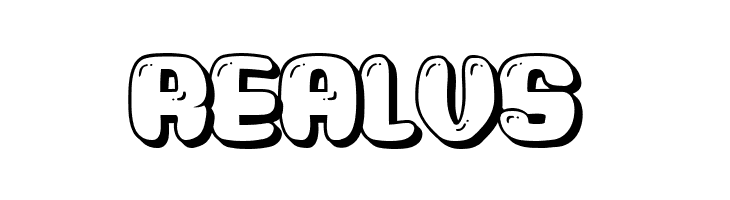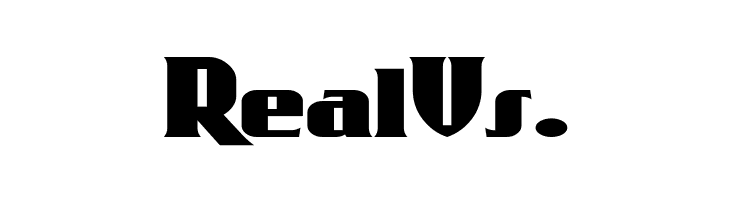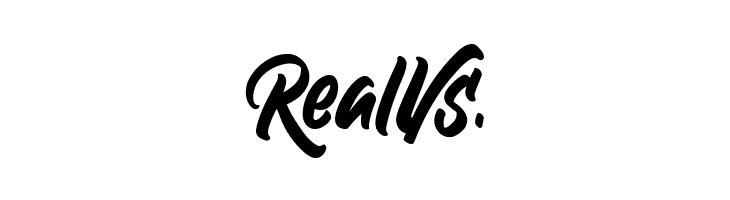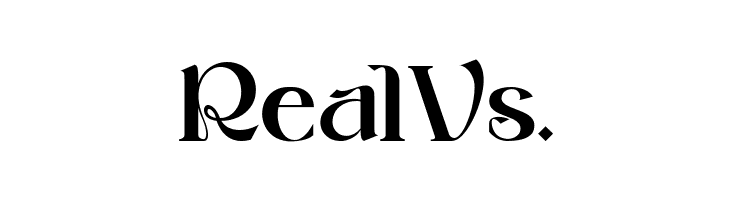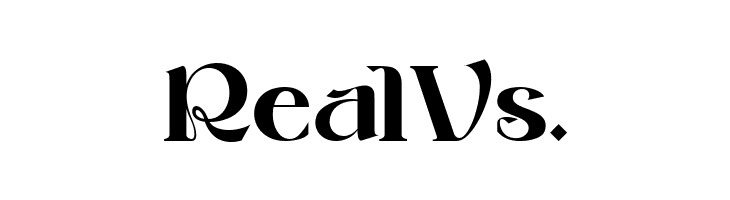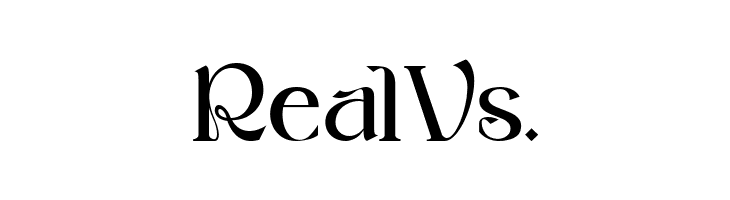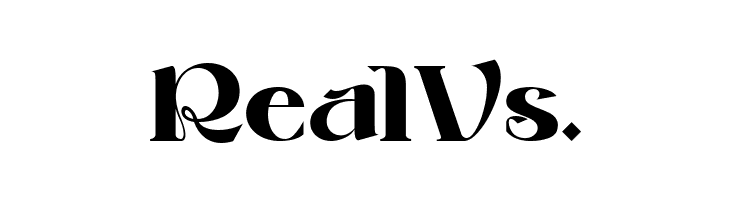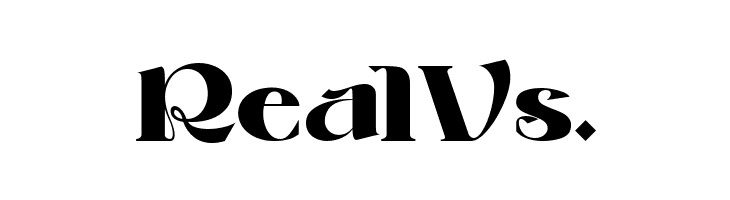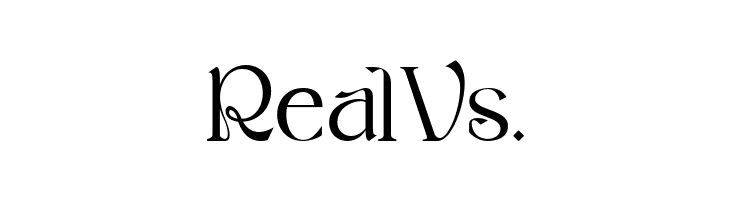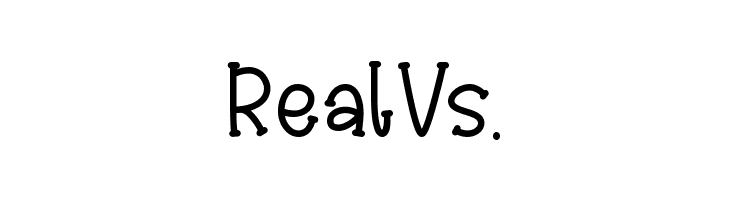
A bold, brush-style font with dynamic, expressive strokes.
An artistic and angular font with a bold, geometric style.
A playful, hand-drawn style font with rounded, consistent strokes.
An elegant and flowing script font with sophisticated cursive style.
A geometric, architectural font with a modern, technical style.
A modern, elegant script font with fluid, graceful strokes and a handwritten feel.
An elegant script font with flowing, high-contrast strokes and ornate flourishes.
A bold, slanted font with a brush-like texture and dynamic style.
A bold, decorative font with modern geometric elements and elegant flourishes.
A bold, decorative font with dynamic curves and sharp angles.
A modern and elegant font with sharp edges and graceful curves.
A bold, decorative font with a modern vintage style and angular serifs.
A bold, decorative font with artistic and modern elements.
A bold, decorative font with a modern and dynamic style.
A bold, geometric font with a futuristic and edgy style.
A lively, handwritten script font with bold, fluid strokes.
A bold, geometric font with art deco influences, perfect for striking headlines.
A playful, bold font with a bubble-like, cartoonish style.
A bold, geometric font with a futuristic and modern design.
A bold, angular font with a vintage yet modern appeal.
A bold, modern font with rounded, condensed characters and a playful style.
A modern, geometric font with sleek, continuous lines and a minimalistic style.
A dynamic and expressive script font with fluid, cursive strokes.
A bold, decorative font with thick strokes and a modern flair.
Bold, artistic script font with a handwritten style.
A bold, dynamic script font with high contrast and fluid, connected characters.
A bold, dynamic script font with flowing strokes and a strong visual impact.
A playful, bold font with rounded, whimsical characters.
A bold, rounded font with a strong, modern appearance.
A modern, artistic font with smooth curves and sharp angles.
A playful, handwritten font with a whimsical and casual style.